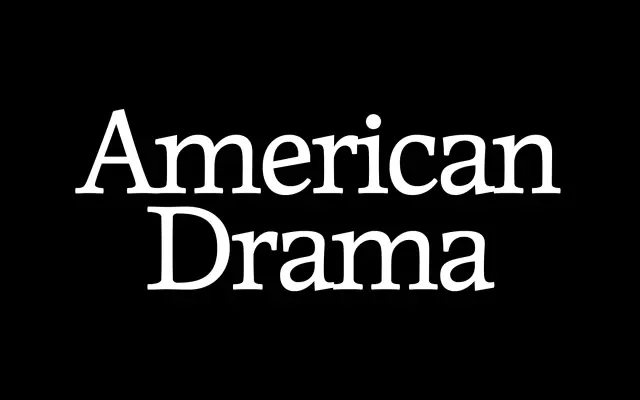
New Burns
OTT Foundry · Eliott Grunewald
A low-contrast serif with a generous x-height, designed as a tribute to Aaron Burns and grounded in research into ITC's typographic legacy.
Designed by Eliott Grunewald and developed by OTT Foundry, New Burns draws on a research project into the International Typeface Corporation, the New York foundry co-founded by Aaron Burns, Herb Lubalin and Edward Rondthaler in 1970. The typeface takes an organic approach to the serif form, with a wide x-height and restrained stroke contrast that performs best at close tracking and tight leading. Its extended Latin character set supports a broad range of European languages.
New Burns is described as an organic serif with generous x-height and low contrast, characteristics consistent with a humanist approach to serif design rather than a high-contrast transitional or rational model.